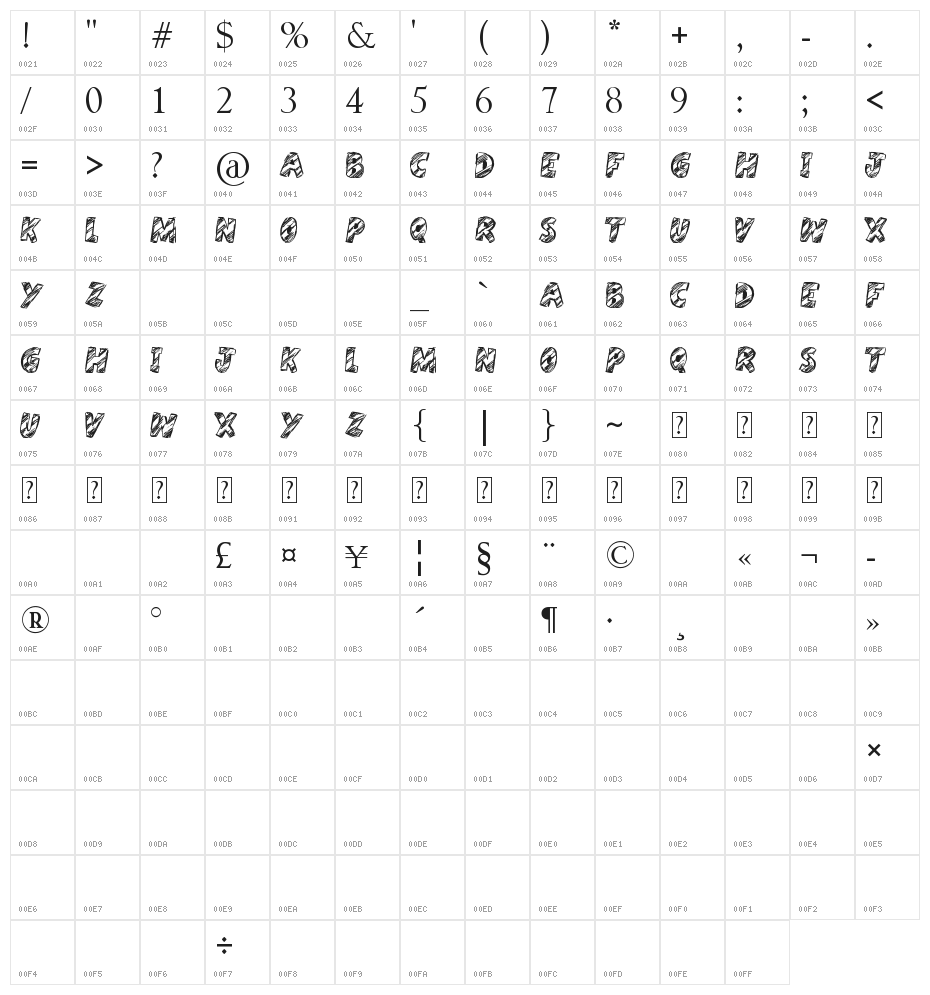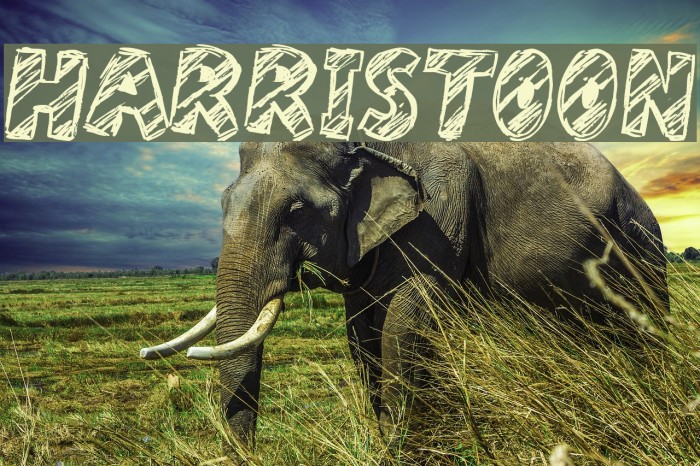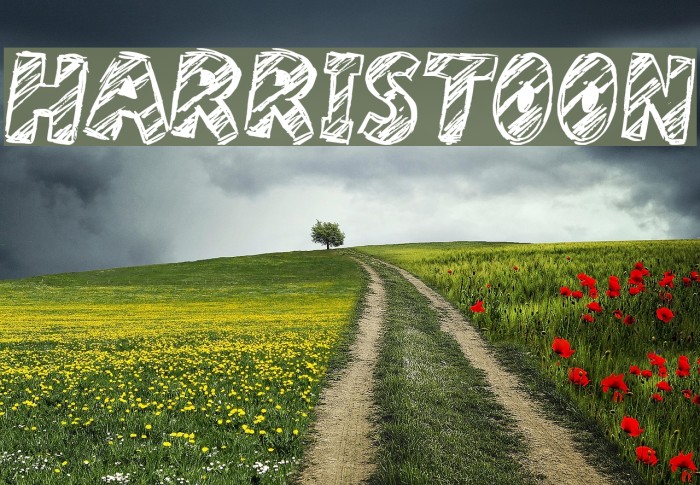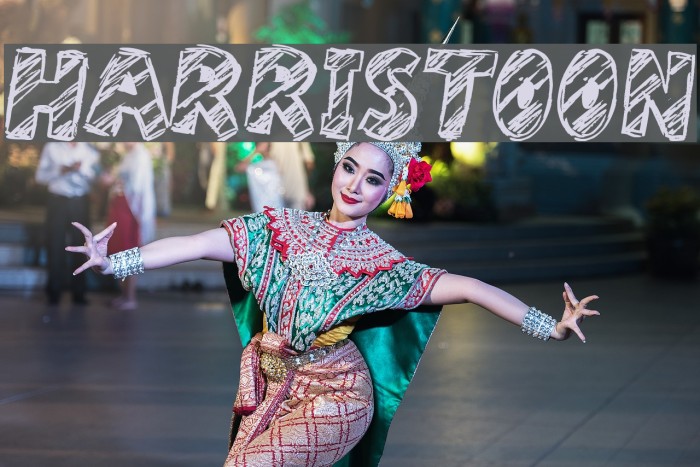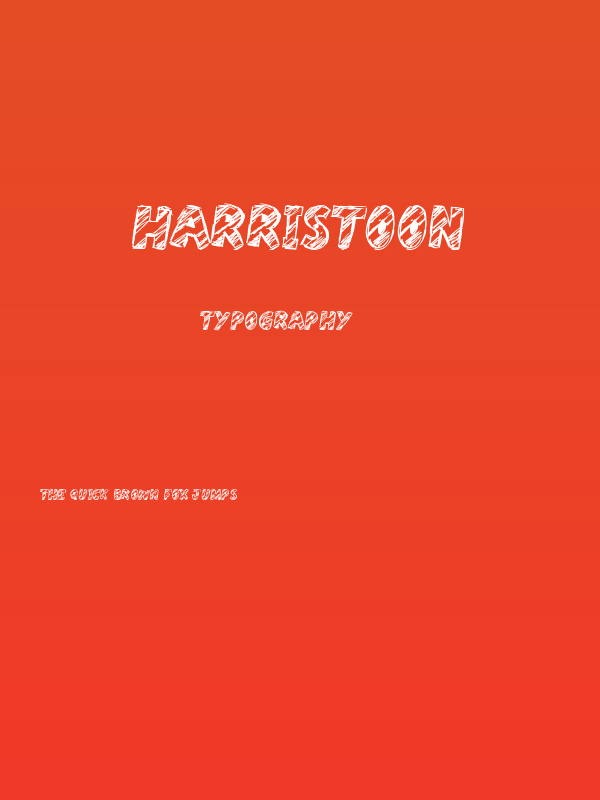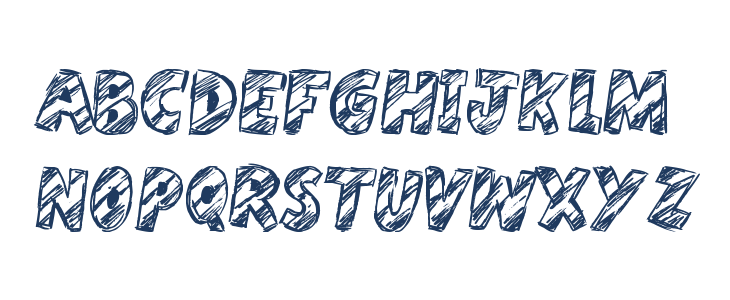
Harristoon Font
Harristoon Description
This playful and dynamic font features a bold, sketch-like appearance with a hand-drawn quality. The uppercase letters are characterized by thick, uneven strokes that create a sense of movement and energy. The lowercase letters maintain this lively style, offering a cohesive look across the alphabet. The numbers are presented in a more traditional serif style, providing a stark contrast to the whimsical letters. Special characters are included, maintaining the overall playful theme. This font is ideal for projects that require a fun and informal touch, such as children's books, comic strips, or playful branding.
HARRISTOON UPPERCASE
HARRISTOON LOWERCASE
HARRISTOON OTHER CHARS
| Overall Style | Playful, Dynamic, Hand-drawn |
| Proposed Projects | Ideal for children's books, comic strips, playful branding, and informal designs. |